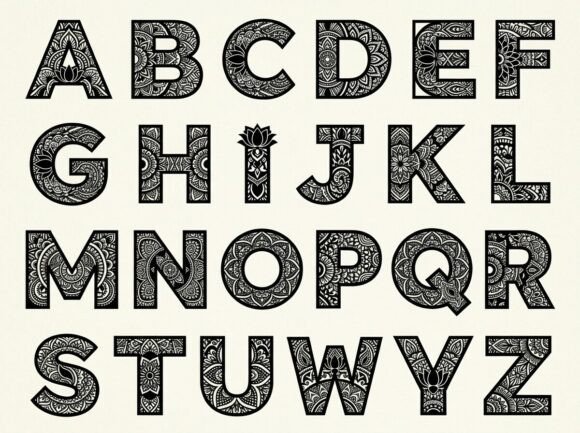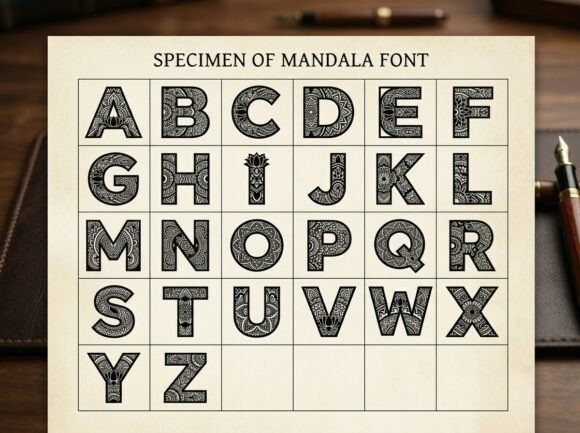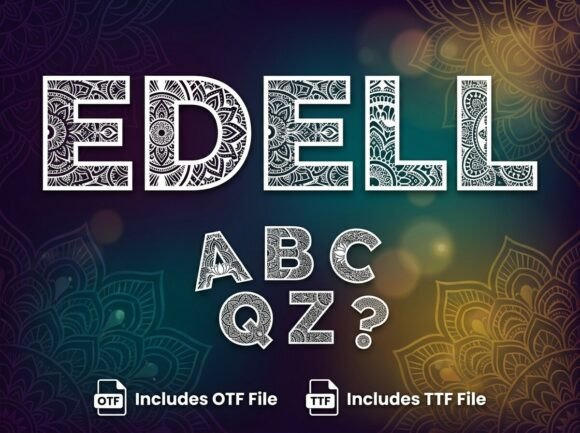
Introducing Edell Font: A Stunning Decorative Display Font
Are you tired of using the same old fonts for your designs? Look no further than Edell Font, a unique and artistic display font that’s sure to turn heads. With its strong visual personality and decorative elements, this font is perfect for creators who want to add a touch of elegance and sophistication to their work.
What Makes Edell Font Special?
Edell Font is a decorative display font designed to be the center of attention. Its unique artistic elements and strong visual personality make it perfect for bold headlines, artistic logos, and creative packaging. Whether you’re a designer, craftsperson, or DIY enthusiast, this font is sure to elevate your work to the next level.
Key Features of Edell Font
- Unique Artistic Elements: Edell Font features intricate and decorative elements that add a touch of elegance to any design.
- Strong Visual Personality: This font has a distinct and recognizable style that’s sure to make your designs stand out.
- Versatile: Edell Font is perfect for a variety of design applications, including bold headlines, artistic logos, and creative packaging.
- Professional and Polished Finish: Despite its decorative nature, Edell Font maintains a professional and polished finish that’s suitable for even the most high-end designs.
⚠️ IMPORTANT NOTE BEFORE PURCHASE: Edell Font is an ALL-CAPS (Uppercase Only) display typeface. It does not include lowercase letters. It is specifically designed for high-impact headlines, logos, and decorative initials where every letter is a work of art.
Who is Edell Font For?
Edell Font is perfect for:
- Designers: Graphic designers, branding experts, and visual artists who want to add a touch of elegance and sophistication to their work.
- Crafters: DIY enthusiasts, craftspersons, and makers who want to create unique and eye-catching designs for their projects.
- Business Owners: Entrepreneurs and business owners who want to create a strong brand identity with bold and eye-catching headlines and logos.
How to Use Edell Font
Edell Font can be used in a variety of design applications, including:
- Headlines and Titles: Use Edell Font to create bold and eye-catching headlines and titles for your designs.
- Logos and Branding: Use Edell Font to create unique and memorable logos and branding elements for your business or project.
- Packaging and Labels: Use Edell Font to create eye-catching packaging and labels for your products.
Edell Font is a stunning decorative display font that’s sure to elevate your designs to the next level. With its unique artistic elements, strong visual personality, and versatility, this font is perfect for designers, crafters, and business owners who want to add a touch of elegance and sophistication to their work. So why wait? Purchase Edell Font today and start creating stunning designs that turn heads!